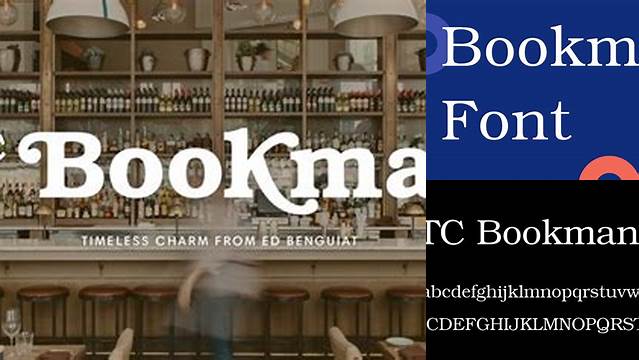
Hey guys! Are you looking for a classic, readable, and versatile font? Look no further than the ITC Bookman font family! It's a timeless choice that's been around for ages, and for good reason. This article will dive deep into everything you need to know about the ITC Bookman font. We'll cover where you can snag a free download, explore its history, discuss its uses, and give you some tips on how to use it effectively. So, let's get started and discover why the ITC Bookman font is still a favorite for designers and writers alike. Let's get this show on the road!
ITC Bookman Font Family: What Makes It Special?
The ITC Bookman font family has a certain charm, doesn't it? It's not just another font; it's a statement. Born from the original Bookman typeface, designed by Alexander Phemister in the late 19th century, ITC Bookman, as we know it, was revamped by the International Typeface Corporation (ITC). This revamped version provided a more robust and versatile family. What truly sets the ITC Bookman font apart is its excellent readability, making it a go-to choice for body text. It's rounded serifs and generous x-height contribute to its clarity, even at smaller sizes. This makes it ideal for books, magazines, and any other project where the reader's comfort is key. Additionally, the ITC Bookman font carries a sense of warmth and approachability. Its friendly appearance makes it perfect for projects aimed at a wide audience. The family includes various weights and styles, from light to bold, and italic versions, offering flexibility for different design needs. These options let you add emphasis, create contrast, and maintain a cohesive look across your design. Furthermore, the ITC Bookman font has a long and rich history. Being a descendant of the original Bookman typeface, it's steeped in tradition. This gives the font a classic and enduring quality, making it a timeless choice. It's not just a font; it's a piece of design history. So, when you choose ITC Bookman, you're choosing a typeface with both functionality and historical significance. Whether you're working on a novel, a website, or a simple flyer, the ITC Bookman font can bring a touch of elegance and readability that few other fonts can match. It's a true classic! The ITC Bookman font stands out from the crowd because of its history, readability and versatility.
The Readability Factor
The ITC Bookman font's incredible readability is a huge reason for its enduring popularity. Imagine you are reading a book, the ITC Bookman font is one of the fonts that can give a cozy impression. The design emphasizes clarity. This is particularly important for long-form content, where readers need to stay engaged without straining their eyes. The generous x-height (the height of the lowercase letters) is a key element in this readability. It allows for easy recognition of individual letters, even when the font size is small. This is unlike some fonts that have small x-heights, which can make them difficult to read in extended text. Rounded serifs also play a big role in helping your eyes follow the lines of text smoothly. Serifs, which are the small strokes at the ends of letters, guide the reader's eye. The ITC Bookman's serifs are not overly stylized, so they enhance readability without being distracting. The balance between the letterforms and the spaces between them is perfectly calibrated, which reduces visual clutter and makes it easier to read. This is crucial for creating a comfortable reading experience. Additionally, the variety of weights (light, regular, bold) adds to its readability. By varying the weight, you can create emphasis and hierarchy without compromising the overall clarity of your text. This lets you highlight important information or create a visual structure that guides the reader. Therefore, when you are looking for a font to use for long-form content, the ITC Bookman font is one of the best options.
Versatility in Design
Another factor that makes the ITC Bookman font so special is its versatility. The ITC Bookman font is not just for novels and academic papers, but is so flexible that it can be used in a huge variety of design projects. The font family includes different weights and styles. This diversity opens up a whole new world of design possibilities. With the regular weight, you can establish a readable foundation for body text. The bold weight is perfect for headings and highlights. Italic versions add a touch of elegance and emphasis. This versatility allows you to use the same font throughout a project, while creating visual interest and guiding the reader's eye. Beyond its internal variations, the ITC Bookman font adapts well to different design styles. It complements both classic and modern aesthetics, making it a safe choice for different project needs. This adaptability extends to different platforms and mediums. Whether you're designing a website, a printed document, or a digital presentation, the ITC Bookman font ensures your text looks good. Moreover, the ITC Bookman font can be paired with a wide range of other typefaces. This allows you to create contrast and visual interest without sacrificing readability. You can combine it with a sans-serif font for a modern look or pair it with a more ornate font for a touch of elegance.
Exploring the ITC Bookman Font Family Styles
The ITC Bookman font family isn't just one font; it's a whole collection of styles that offer a lot of design flexibility! Whether you want something bold, italic, or light, the ITC Bookman font family has you covered. Let's take a look at the different styles and see how you can use them.
Weights and Styles
When you want to explore the ITC Bookman font family, you'll find various weights and styles, each with its specific purpose. Regular is the classic, standard weight. It's your go-to for body text, providing excellent readability and a clean look. It's ideal for articles, books, and other long-form content. Bookman Bold provides more emphasis and weight. This is great for headings, subheadings, and any text that needs to stand out. The extra thickness grabs attention without being overwhelming. Bookman Italic adds a touch of elegance and a slightly more dynamic feel. This is fantastic for creating contrast and emphasis. You can use it for quotes, captions, or any text that you want to slightly set apart from the main body. Bookman Bold Italic is the boldest and most striking style. It combines the weight of the bold version with the slant of the italic version. This style is perfect for the most important headlines or for creating a strong visual impact. The variations let you create a visual hierarchy and guide the reader's eye. You can use different weights and styles to differentiate between headings, subheadings, and body text, creating a structured and organized layout. Consider how these variations can enhance the aesthetic of your design. By using each style in its appropriate context, you can create visually appealing designs. This will keep your design looking professional.
Using the Font Styles Effectively
To use the ITC Bookman font family effectively, think about how you want to emphasize text and create a visual hierarchy. Remember that the goal is always to enhance readability and guide the reader's eye. When working on a design, make sure you use the regular weight of the ITC Bookman font for the main body text. This provides the best legibility. Use bold and bold italic for headings, titles, and any text that needs to attract immediate attention. The heavier weights help these elements stand out. Use the italic style sparingly. It works well for quotes, captions, and to add a touch of elegance. Don't overdo it. Using too many italic fonts can make your text difficult to read. Keep things balanced. A good design has a clear visual hierarchy. Use different styles and weights to signal the importance of different elements. Create a clear structure. Your reader should be able to easily understand the flow of information. In addition, consider the context of your design. The ITC Bookman font family is suitable for various applications, from books and magazines to websites and digital documents. Choose the right style for your project needs. Finally, experiment with pairings. You can combine ITC Bookman with other fonts. However, be careful to maintain a cohesive and visually pleasing look. A well-executed design makes your message clear.